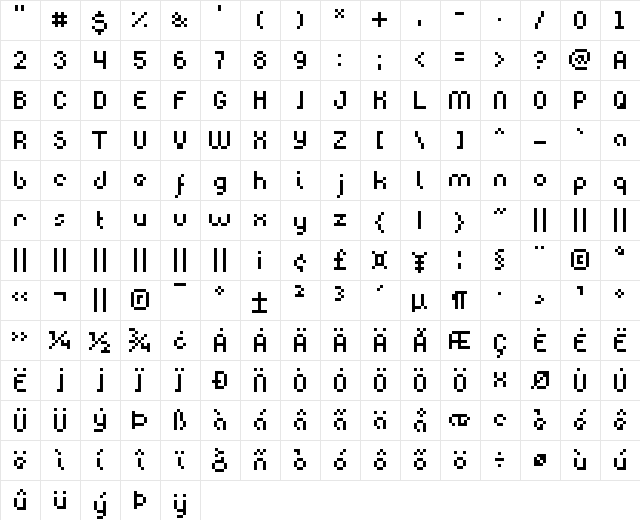
PF Pepito Regular
Design Context for PF Pepito Typeface
PF Pepito offers clean, dependable letterforms without strong stylistic allegiance, making it a practical choice for designers who need flexibility.
Pro Tip: Use PF Pepito in both headline and body roles to test its range before committing to a single application.